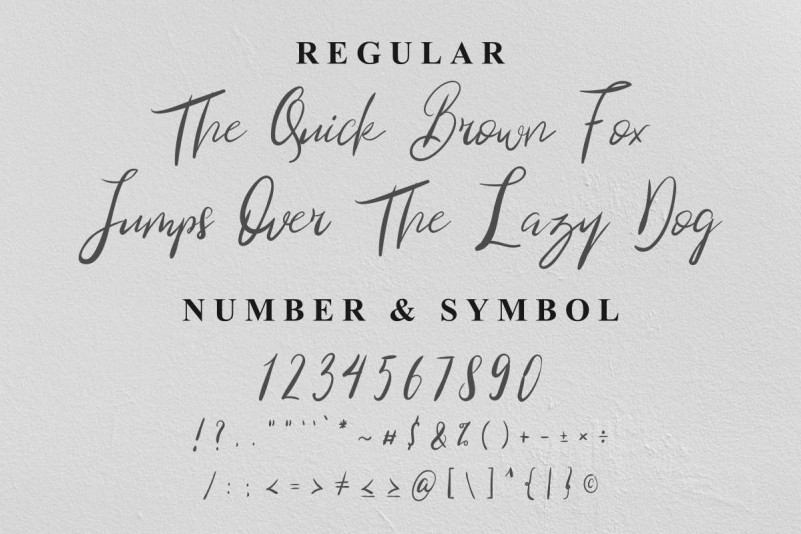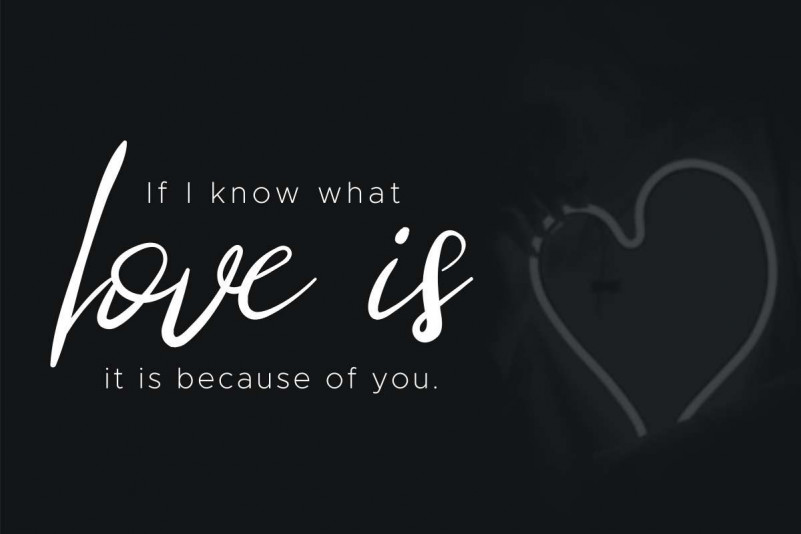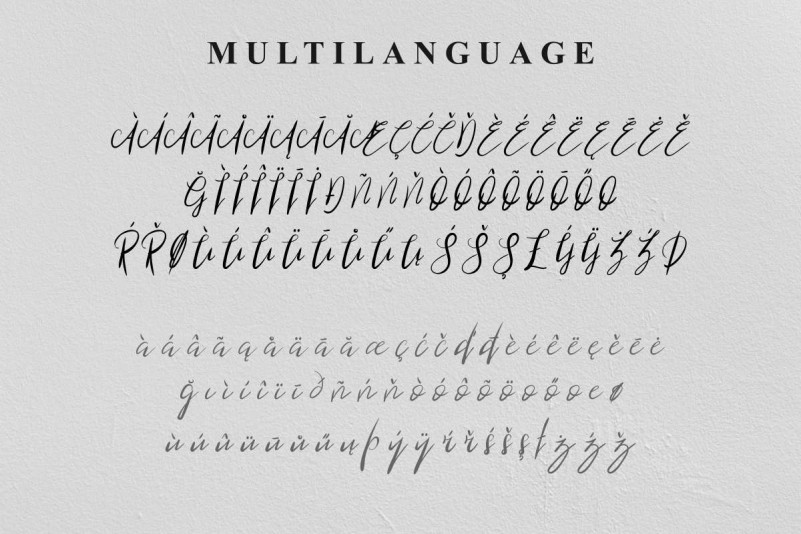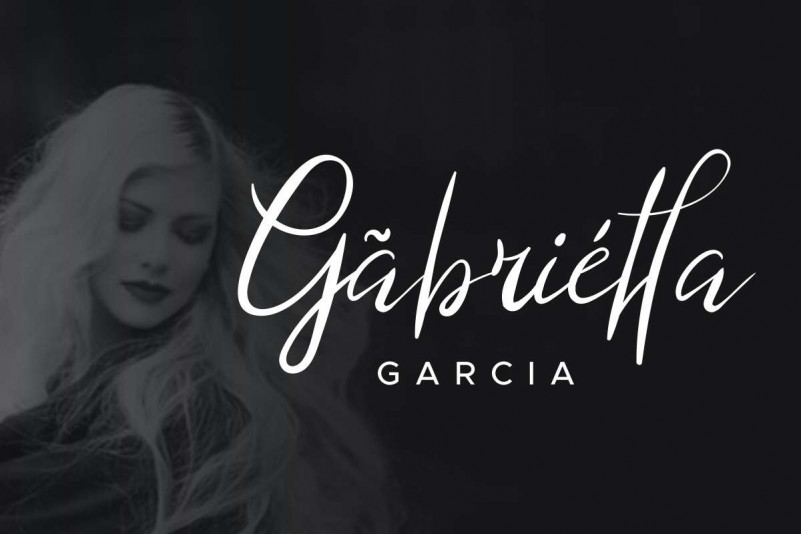
Blind Heart Script Font
Hi Everyone! Introducing our newest font : Blind Heart Script Font! This is a new modern script handwriting calligraphy style font. It has a fresh, elegant, natural and stylish glyphs. Will be perfer for any designs projects.